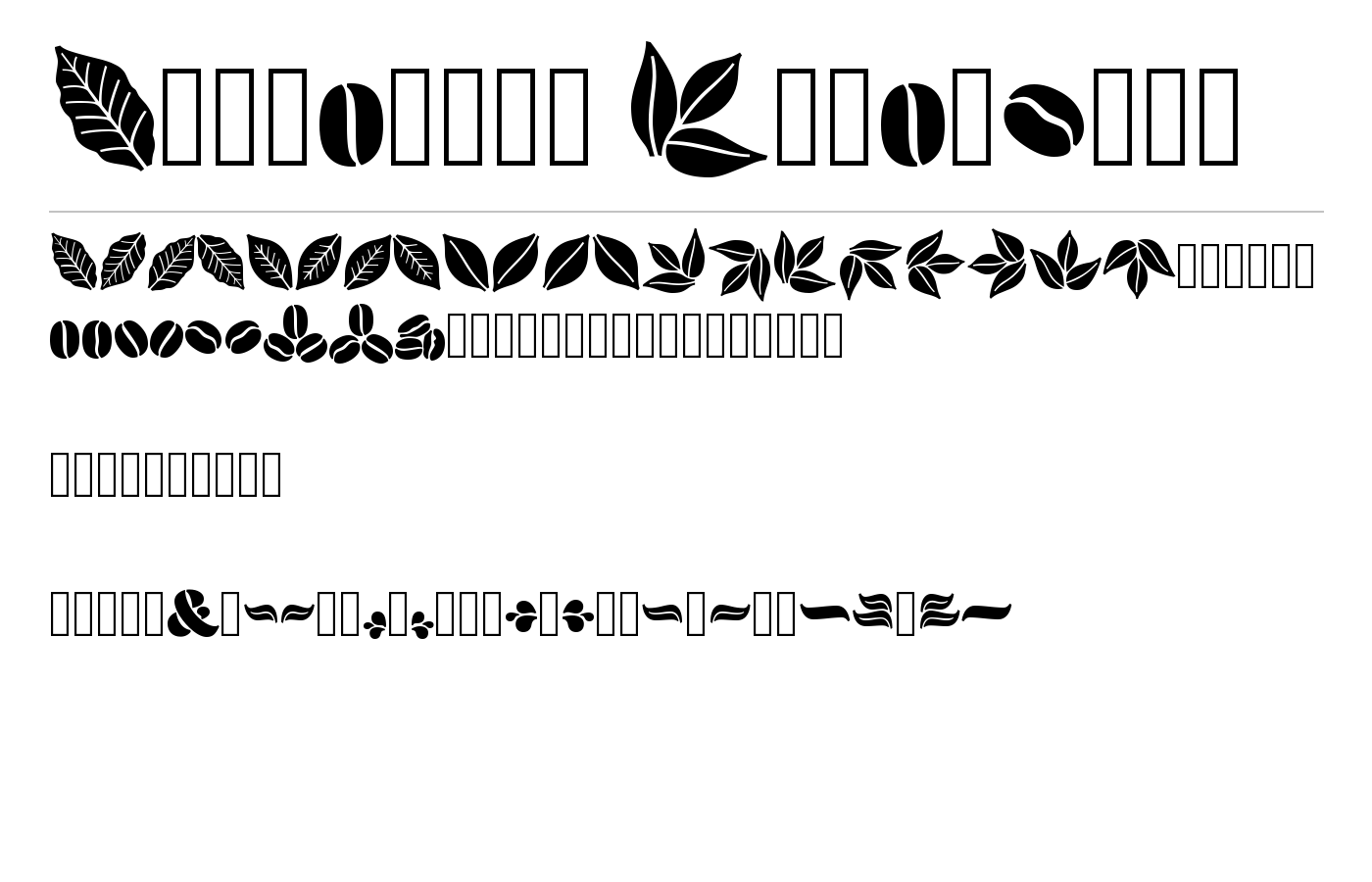
Aromatron is a decorative display font featuring stylized botanical elements like leaves and coffee beans, creating a playful, organic vibe. It’s ideal for branding or packaging in the food, beverage, or wellness industries where a natural and artistic look is desired. This font adds a unique, hand-crafted touch to designs, making it perfect for eye-catching headers and logos rather than body text.
Aromatron Font
About Aromatron Font